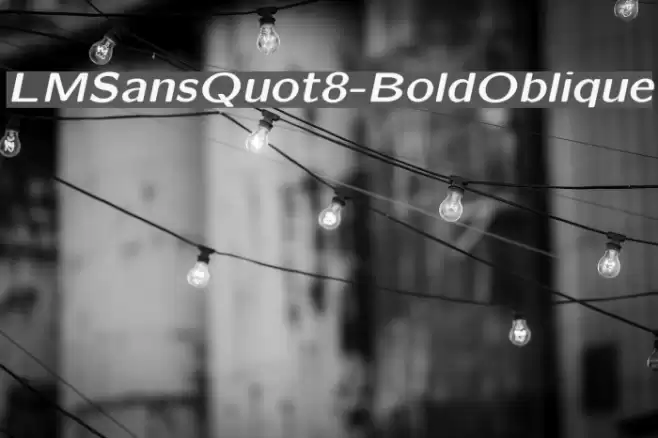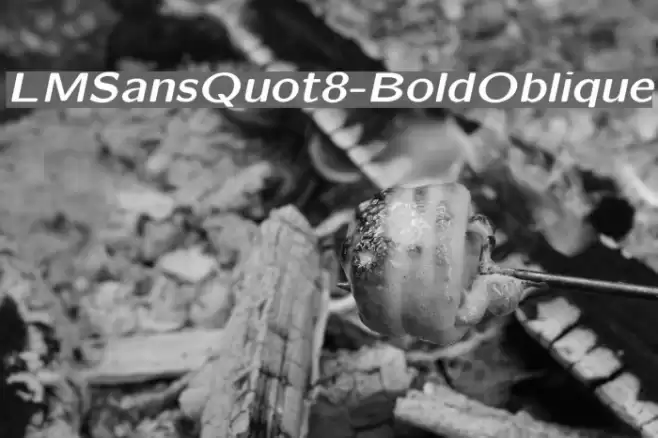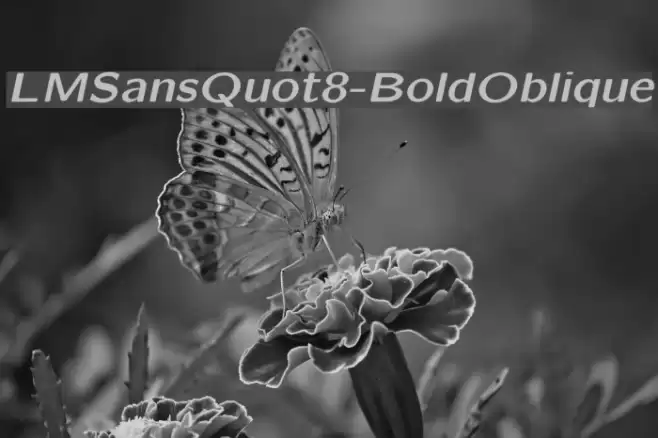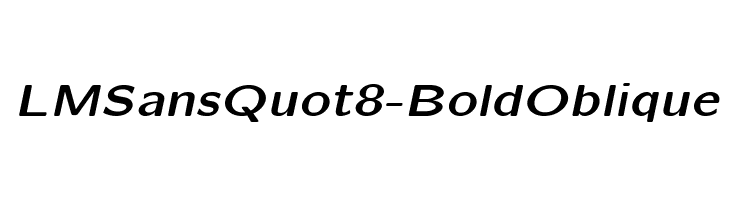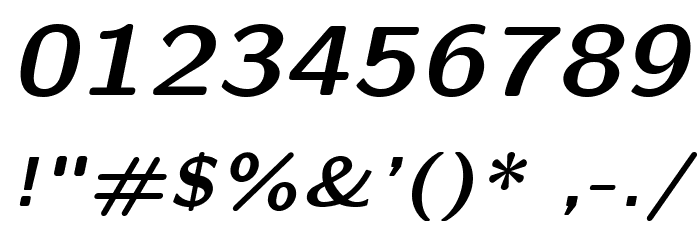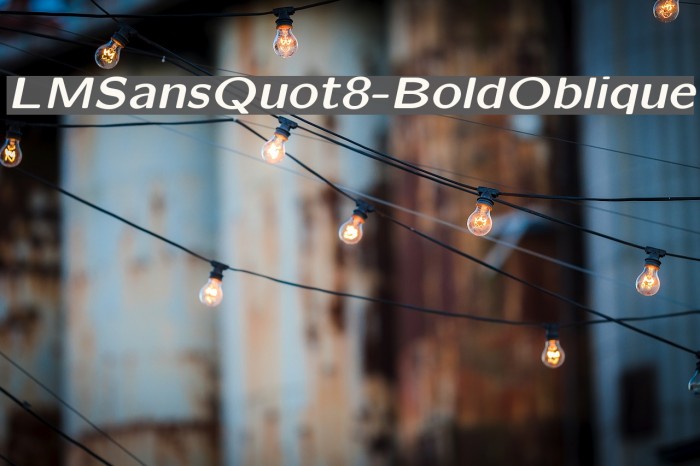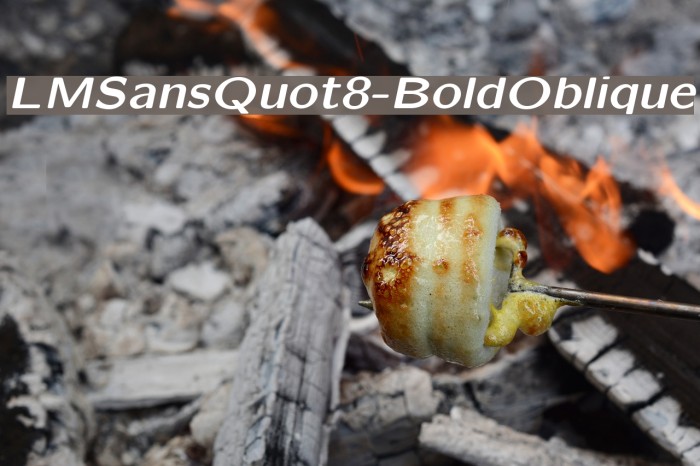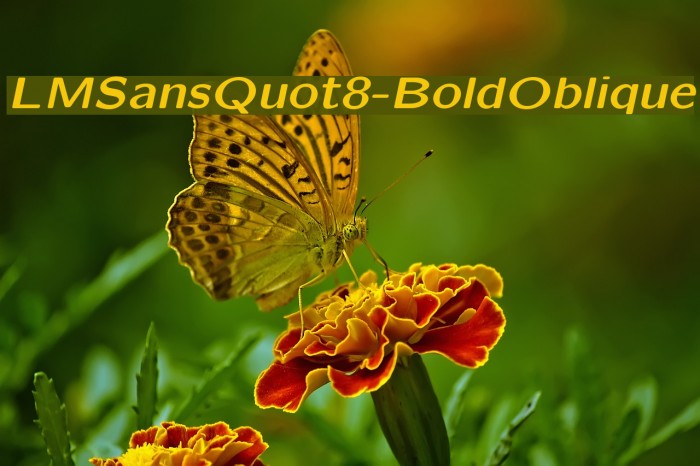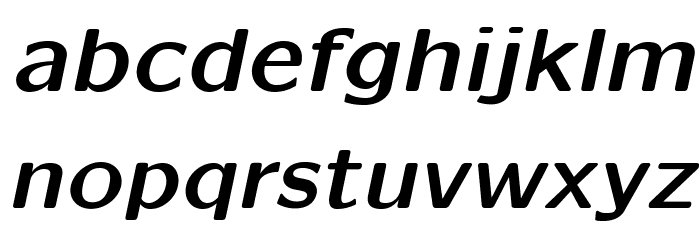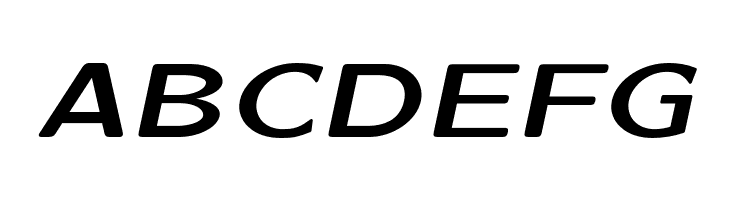
LMSansQuot8-BoldOblique Font
LMSansQuot8-BoldOblique Description
This font exhibits a modern sans-serif style with a bold and oblique presentation. The characters are clean and streamlined, offering a contemporary look suitable for various digital and print applications. The uppercase and lowercase letters maintain a consistent slant, enhancing the dynamic appearance. Numerals and special characters are well-integrated, ensuring readability and versatility. The font's bold weight provides a strong presence, making it ideal for attention-grabbing headlines or branding materials. Its oblique nature adds a sense of motion and energy, perfect for projects requiring a modern and stylish touch.
A bold, oblique sans-serif font with a modern and dynamic style from Uncategorized fonts.
- Proposed Projects: Ideal for branding, advertising, headlines, and digital media projects.
- Use Case: Headlines, Logos, Branding